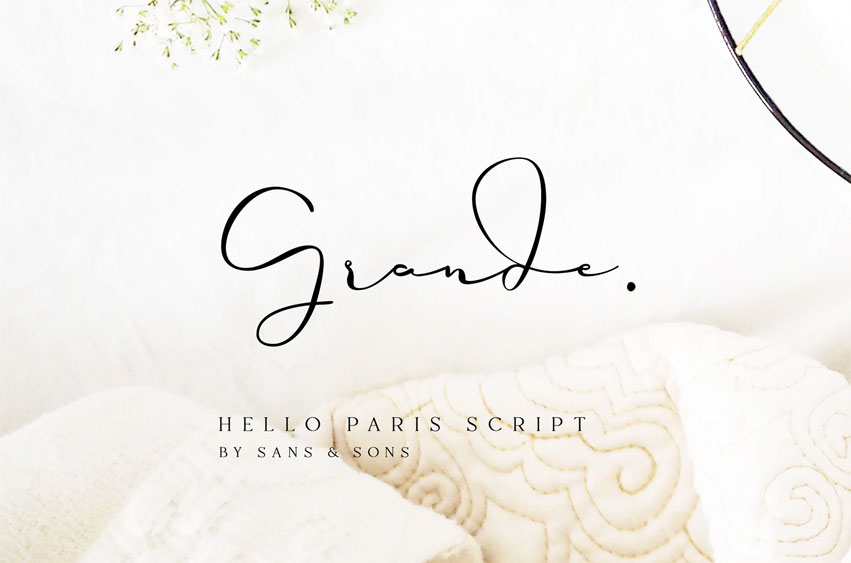
Hello Paris Script Font
Hello Paris Script Font is an Modern Stylish Signature. perfect for branding, logos, invitation, masterheads and more.
make your brand more stand out with Hello Paris Signature.
Hello Paris Script Features :